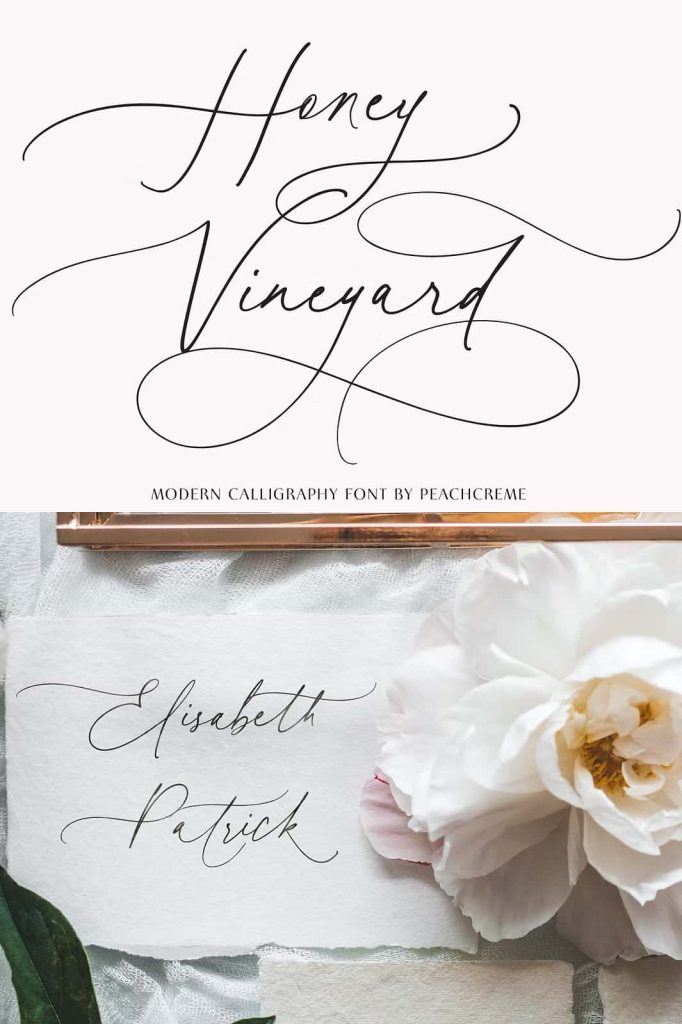
Honey Vineyard // Modern CalligraphyleastedJuly 12, 2025Fonts Meet our new font “Honey Vineyard”! It’s time to pick up on the wedding trend of script-style fonts Download